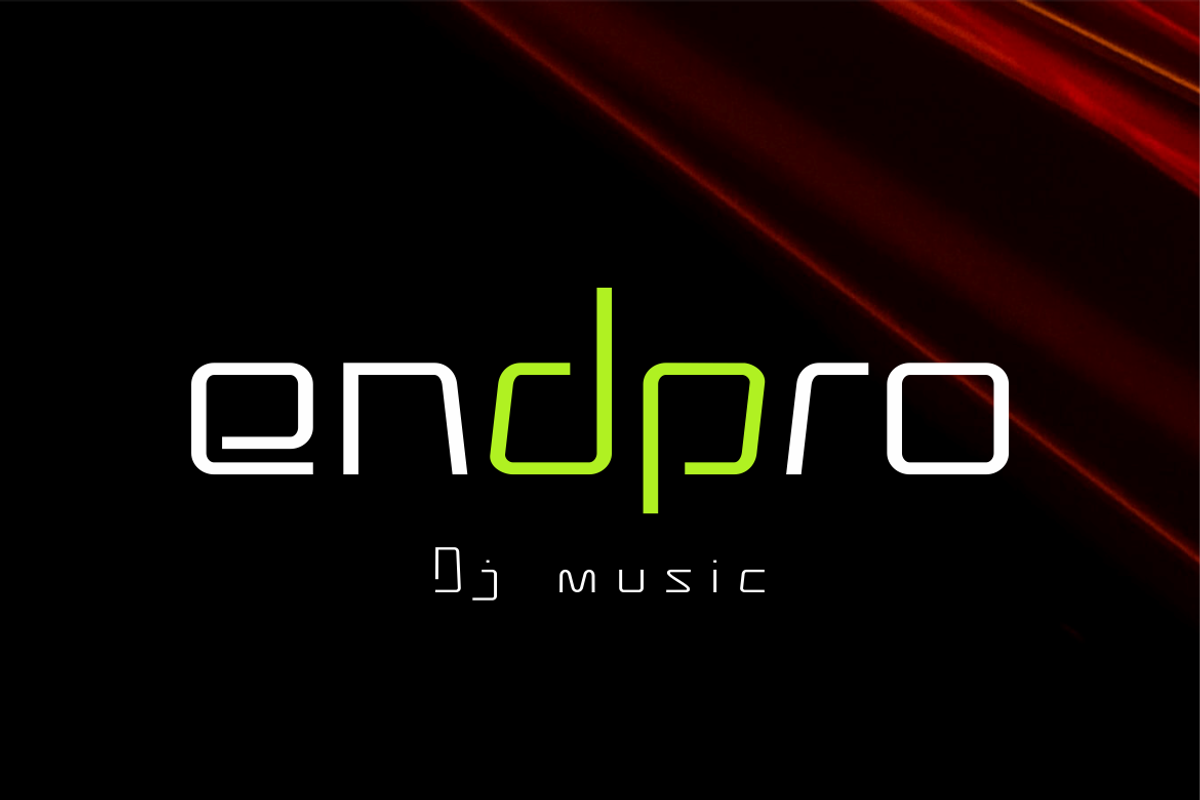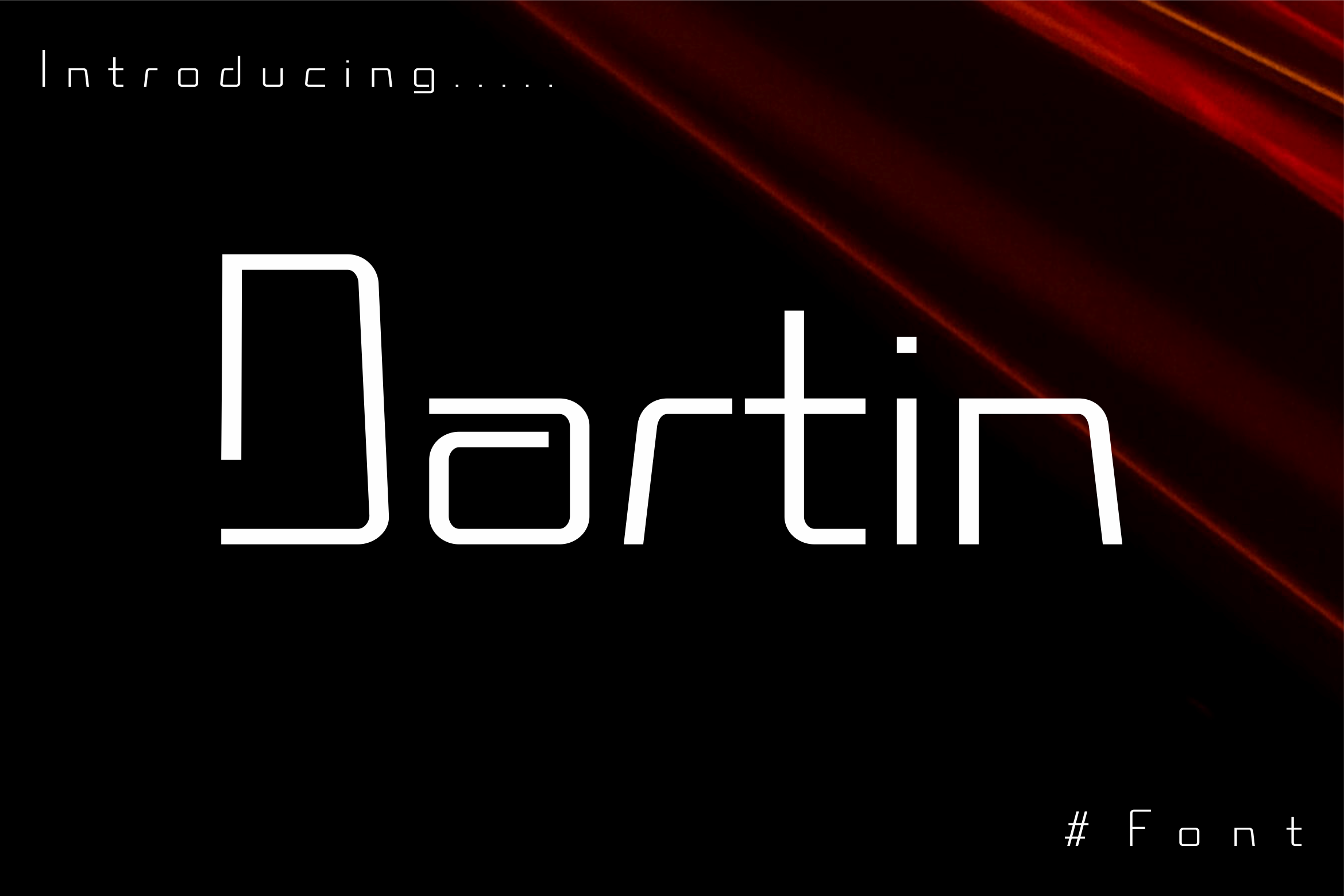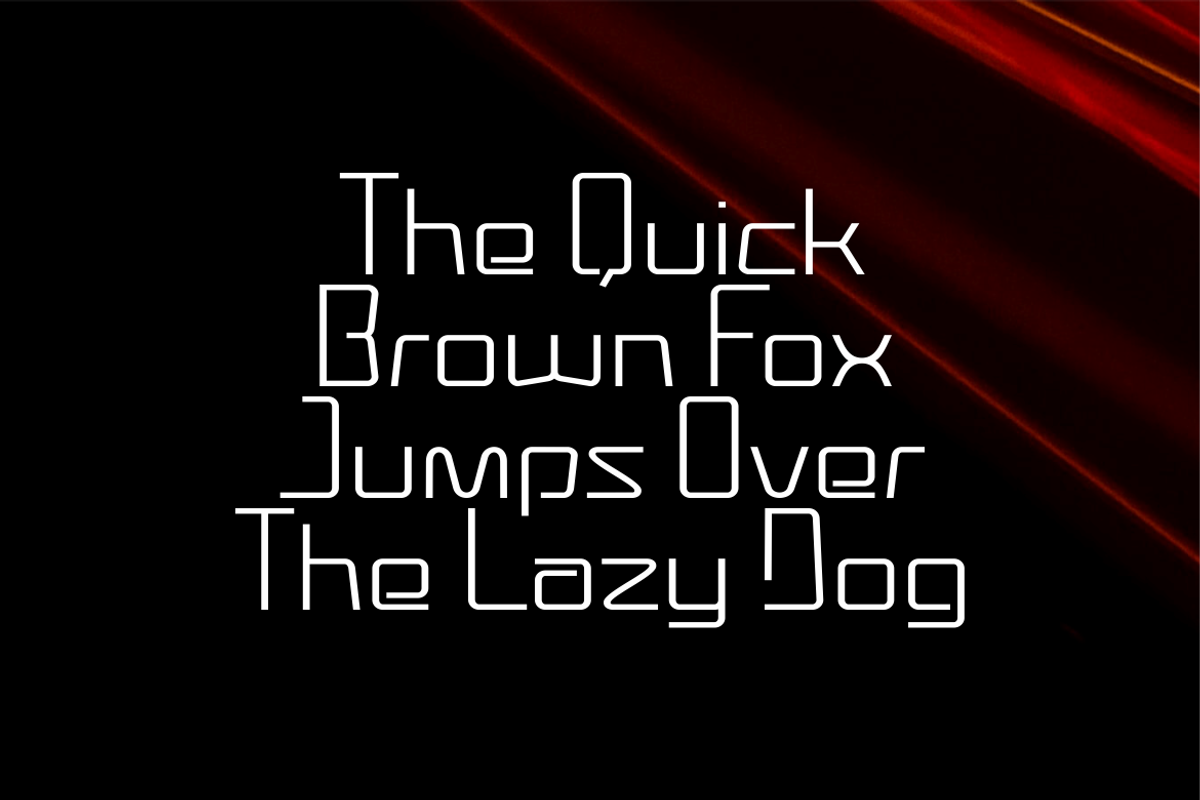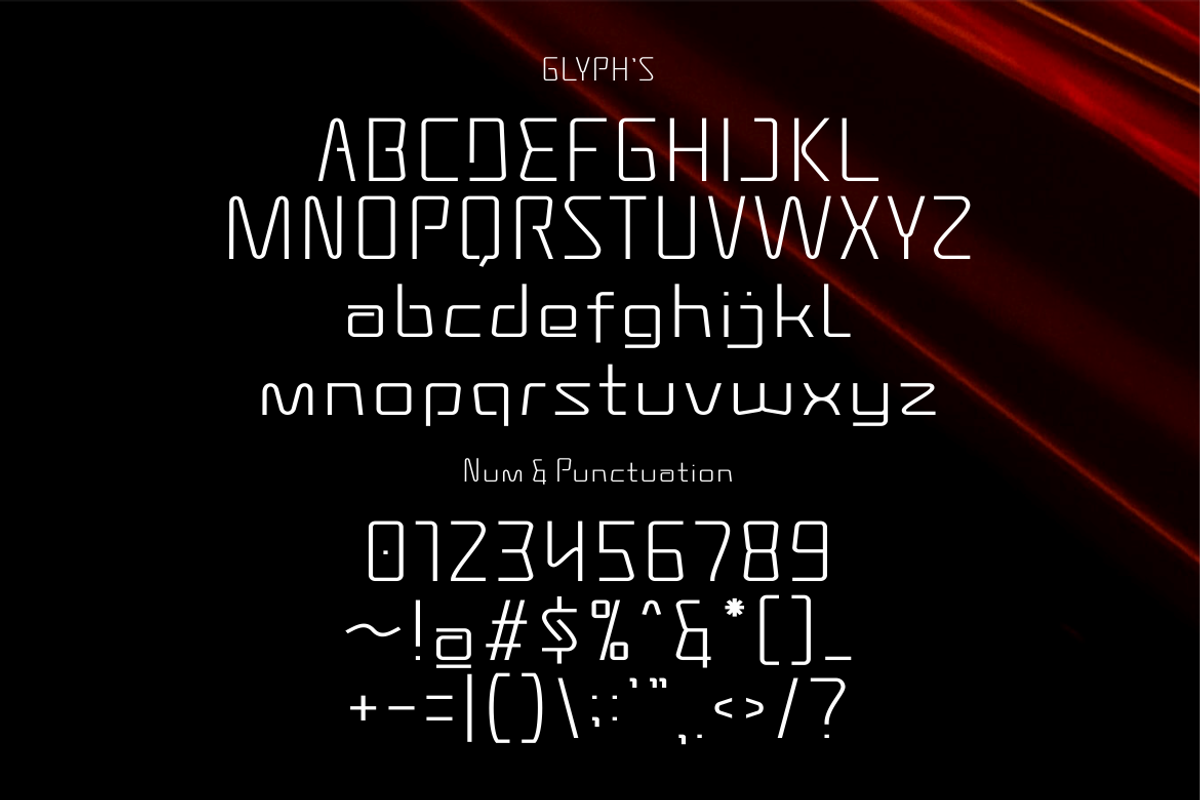
Dartin - Life Music Font
Discover Dartin – The Ultimate Techno Font! Bold, futuristic, and perfect for music lovers, DJs, and clubs. Make your posters, covers, and visuals shine!